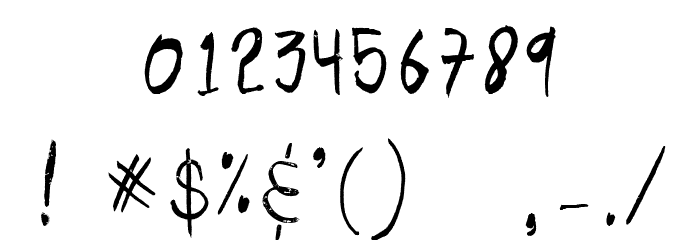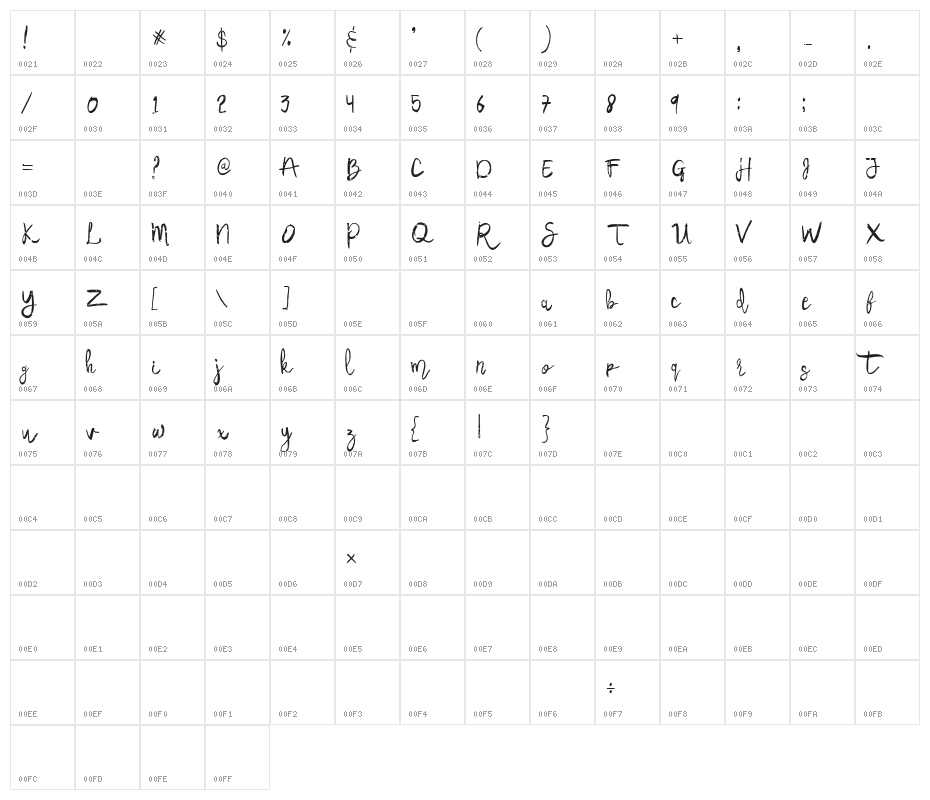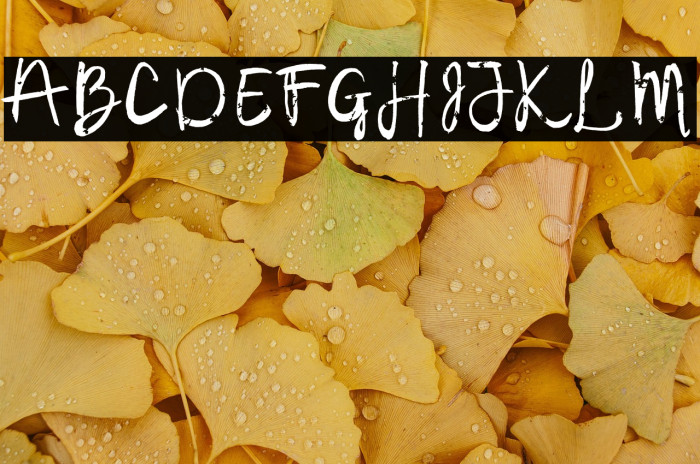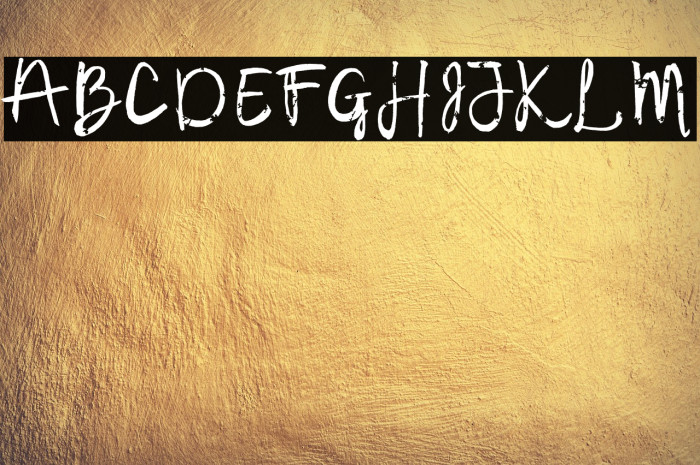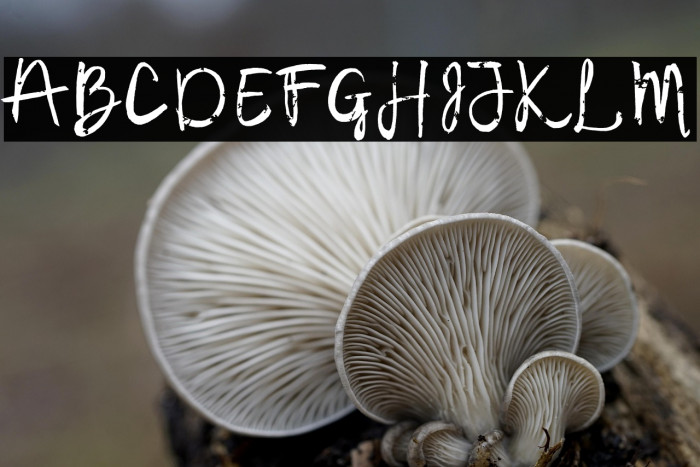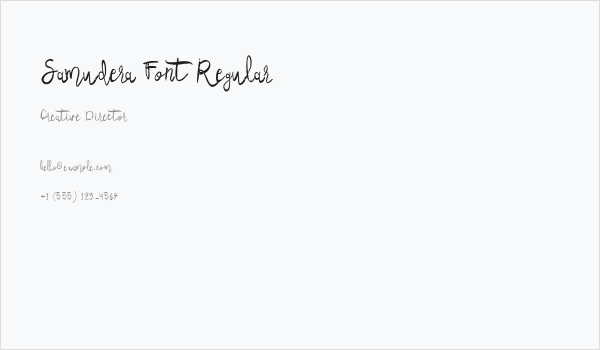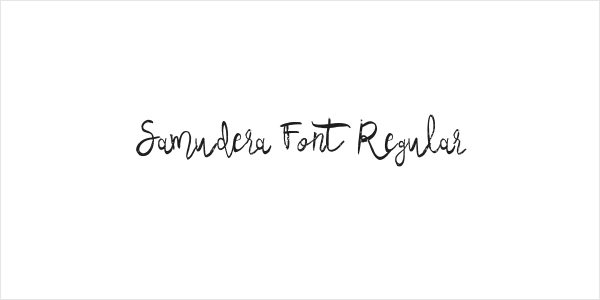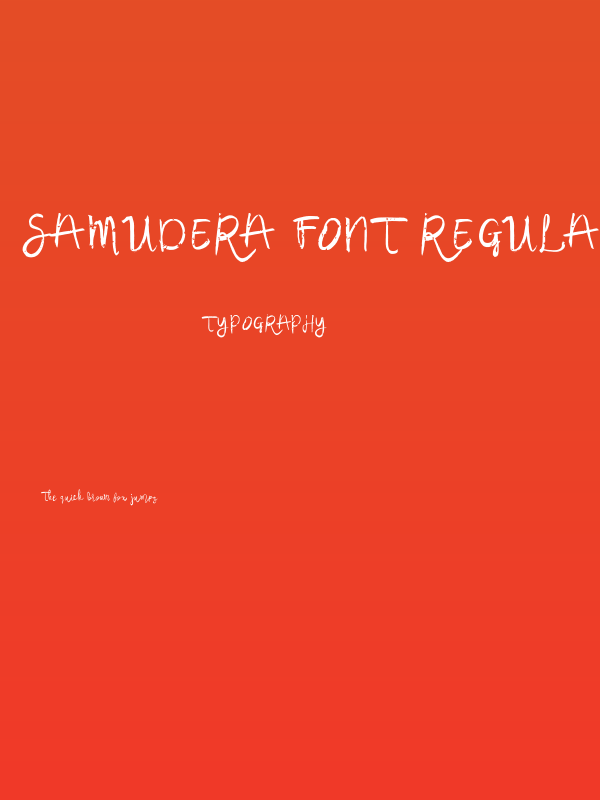
Samudera Font Regular Font
Samudera Font Regular Description
This font features a bold and expressive handwritten style, characterized by its brush-like strokes and dynamic flow. The uppercase letters are bold and slightly irregular, giving a sense of movement and energy. The lowercase letters maintain a consistent style, with some letters featuring unique loops and curves that add to the font's charm. Numbers and special characters are crafted with the same attention to detail, ensuring a cohesive look across all elements. The overall appearance is artistic and slightly rugged, making it perfect for projects that require a personal touch.